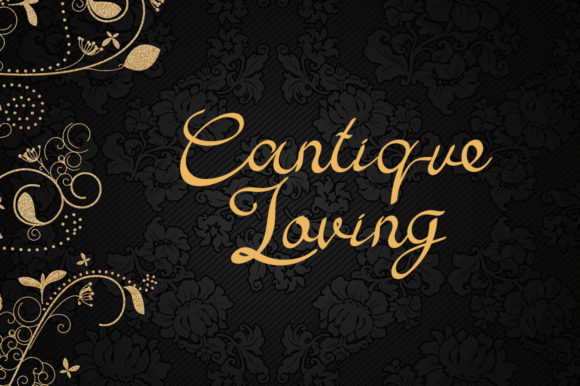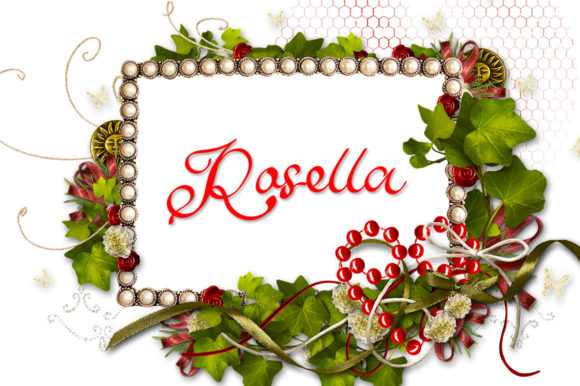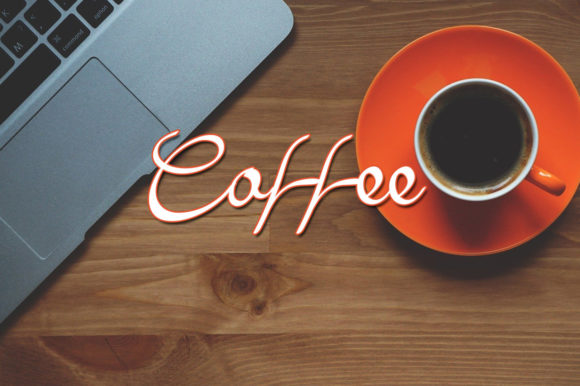
Introducing Elements Font: The Epitome of Sophistication and Elegance
In the world of typography, a font can make or break the visual appeal of a design project. For designers and crafters seeking to add a touch of luxury and refinement to their work, Elements Font is an exceptional choice. This chic, refined script font is designed to emanate sophistication and elegance, making it the perfect match for any project that demands high-end style.
What Sets Elements Font Apart
Elements Font boasts a range of features that set it apart from other script fonts on the market. Its stylish alternates and ligatures are carefully crafted to provide a unique and personalized touch to any design. Whether you’re working on a branding project, packaging design, or digital content, Elements Font offers the versatility and flexibility to elevate your work to new heights.
Key Features of Elements Font
• Sophisticated Script Style: Elements Font features a beautiful, flowing script style that’s perfect for creating elegant and refined designs.
• Stylish Alternates and Ligatures: The font includes a range of stylish alternates and ligatures, allowing you to add a personal touch to your designs and make them stand out.
• High Versatility: Elements Font is suitable for a wide range of design projects, from branding and packaging to digital content and more.
Elements Font is an ideal choice for designers and crafters looking to add a touch of sophistication and elegance to their work. Whether you’re creating:
• Branding and Logo Designs: Use Elements Font to create a luxurious and refined brand identity that resonates with your target audience.
• Packaging Designs: Add a touch of elegance to your packaging designs and make your products stand out on store shelves.
• Digital Content: Use Elements Font to create visually stunning digital content, such as social media graphics, blog posts, and more.
• Stationery and Invitations: Create beautiful, high-end stationery and invitations that showcase your attention to detail and style.
Tips for Using Elements Font Effectively
To get the most out of Elements Font, here are a few tips to keep in mind:
• Pair with Neutral Colors: Pair Elements Font with neutral colors, such as black, white, and gray, to create a clean and sophisticated look.
• Experiment with Alternates and Ligatures: Take advantage of the font’s stylish alternates and ligatures to add a personal touch to your designs.
• Use for Headings and Titles: Use Elements Font for headings and titles to add a touch of elegance and sophistication to your designs.
Font Name Elements Font
Author Eddygoodboy
In conclusion, Elements Font is a stunning script font that offers a unique blend of sophistication and elegance. With its stylish alternates and ligatures, high versatility, and ease of use, it’s the perfect choice for designers and crafters looking to elevate their work to new heights. Whether you’re working on a branding project, packaging design, or digital content, Elements Font is sure to make a lasting impression.